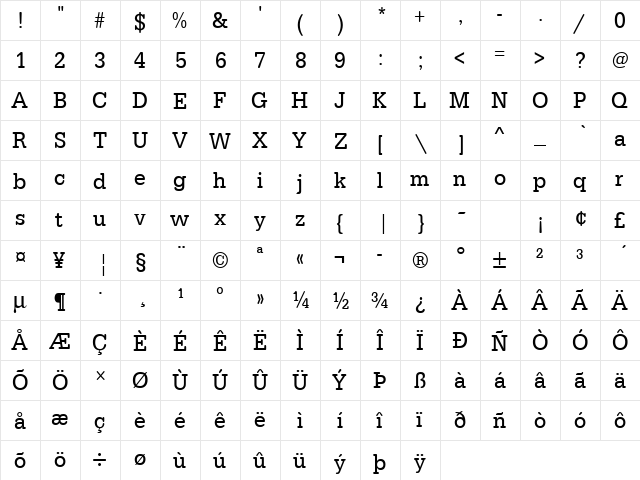
URWTypewriterTExtNar Regular
Design Context for URWTypewriterTExtNar Typeface
URWTypewriterTExtNar uses fixed-width spacing throughout, giving it the structured, systematic character associated with coding environments and technical documentation.